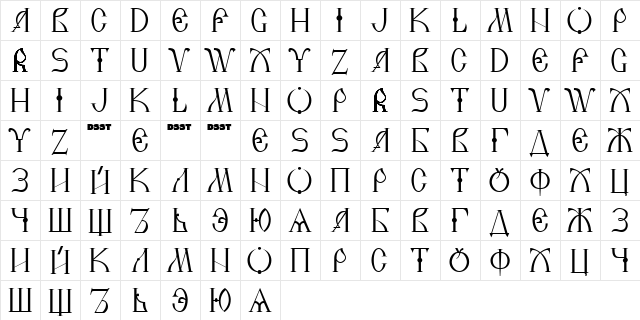
DS Russia Demo Regular
| Designer | Dubina Nikolay (Moscow, Russia) - august 1999 |
Design Context for DS Russia Demo Typeface
DS Russia Demo is a composed and adaptable typeface that performs quietly and consistently across a wide range of design contexts.